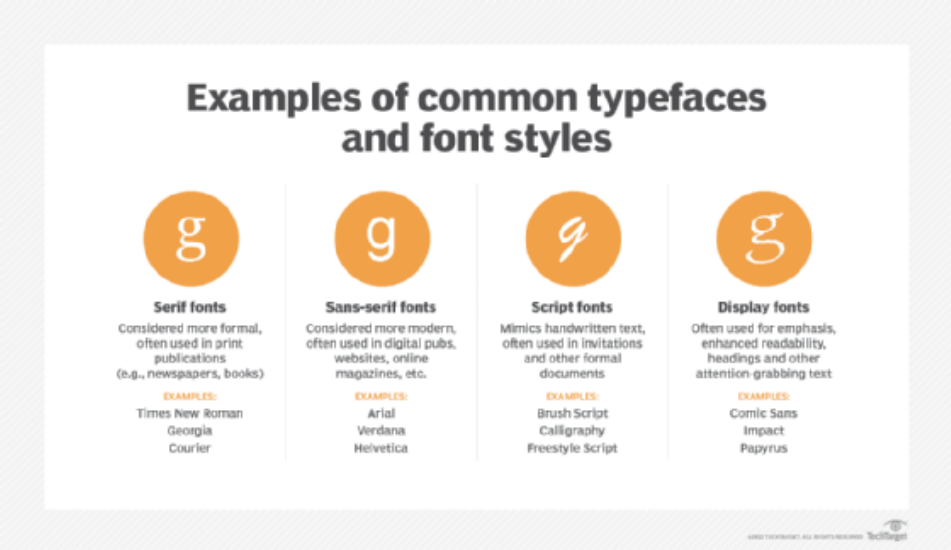
Generally, fonts play an important role to enhance the income of the business. Therefore, there are several important factors to consider when it comes to fonts for business. In simple words, we can say that fonts help to establish a visual identity, convey professionalism, and communicate the intended message. Let’s discuss some important factors related to fonts for business:
Readability: It is the most important factor of the font. You should select a font that is clear and legible in different sizes and on various mediums such as print, digital screens, etc. Avoid extremely embellished or elaborate fonts that may be difficult to read. Besides that, you can change the size of the font with the help of an online small text generator.
Brand Consistency: It is important to know that fonts are a crucial part of branding. You should select the font that aligns with your brand identity and maintain consistency across all communication channels. It includes your logo, marketing materials, website, and other business collateral. In addition to that, a free online small text generator by simply smalltextgenerator.net will help you to change the format of text in different ways.
Professionalism: The font that you choose must reflect the level of professionalism associated with your business. For formal industries that include law or finance, conservative and traditional fonts might be suitable, while creative industries may opt for more impressive and modern fonts that still hold a professional appearance. Therefore, we can say that fonts are very crucial for professionalism.
Versatility: It is important to consider the versatility of the font. It should work well in various contexts and applications. Keep in mind that a font can be used for both headlines and body text or for both print and digital media flexibility and consistency in your business communication. Apart from that, the text of the heading and body can be changed into small in case they are large, then you can a free online small text generator for free.
Brand Personality: Fonts have personalities that can create particular emotions or associations. You should consider the personality characteristics you desire to convey through your brand and select fonts that align with those characteristics. For example, a tech startup might select a clean and modern font to communicate invention and efficiency.
Target Audience: Your choice of font should resonate with your target audience. Consider their preferences, age group, and cultural backgrounds when selecting a font. A font that appeals to a younger demographic might differ from one that targets an older, more conservative audience.
Scalability: It is important to make sure that the font is scalable without losing its visual attraction or legibility. It should look good in different sizes, from small labels to large banners or signage. This online small text generator also supports the scalability of the text.
Licensing and Accessibility: Pay attention to font licensing regulations to evade any legal matters. In addition to that, you should consider accessibility standards and select fonts that are inclusive and legible for people with visual impairments.
Pairing and Hierarchy: If you plan to use considerable fonts, you should consider how they complete each other. Additionally, choose fonts that initiate a cooperative visual hierarchy, determining headlines, subheadings, and body text effectively.
Trends and Timelessness: While it’s essential to stay present with design trends, also assume the longevity of your font options. Opt for fonts that can withstand the test of time, minimising the demand for frequent rebranding or updates.
By considering these factors, you can select fonts that effectively represent your business and enhance your brand identity in a professional and visually appealing manner. Apart from that, you can also use a free online small text generator.